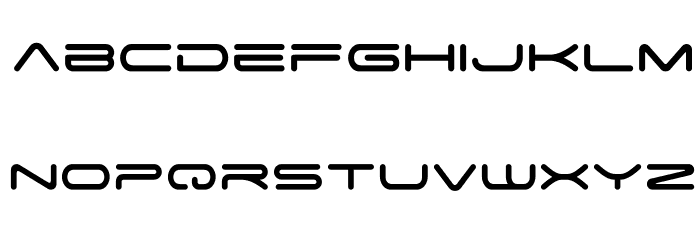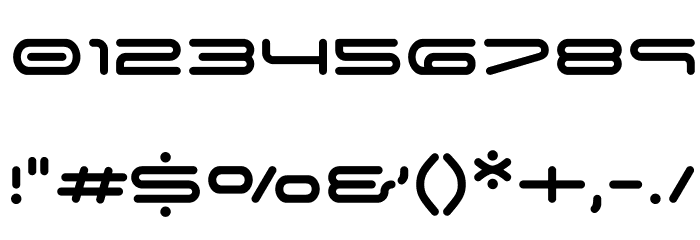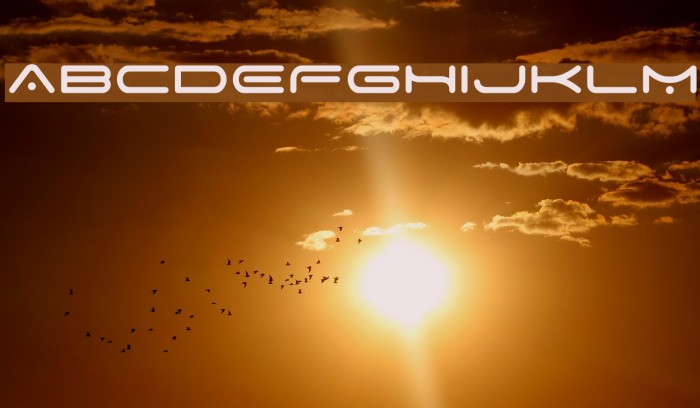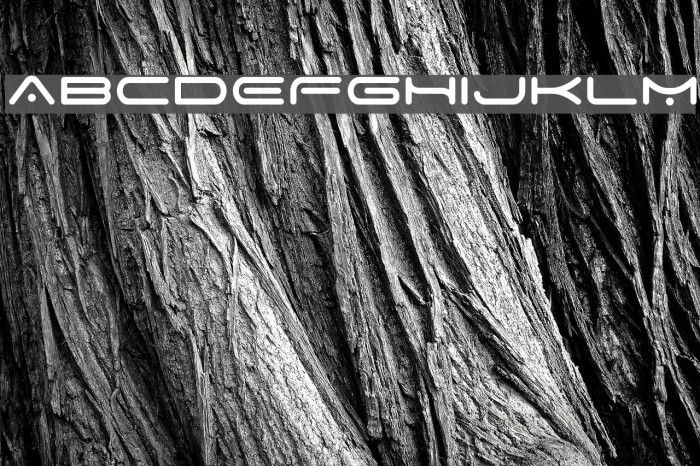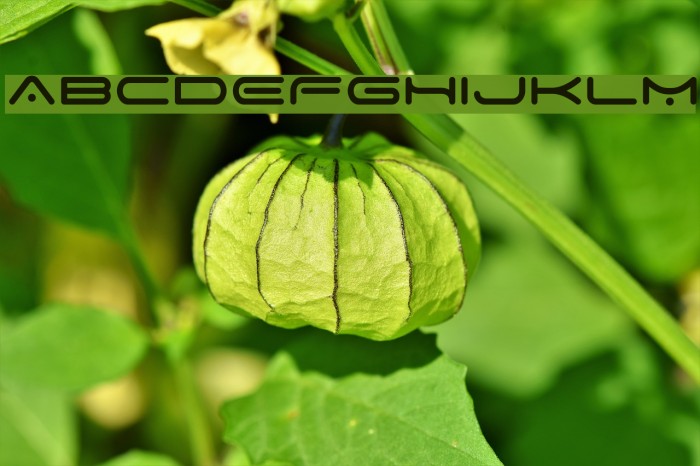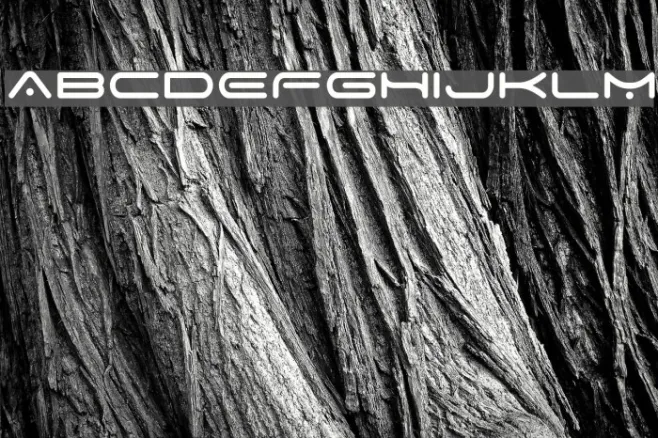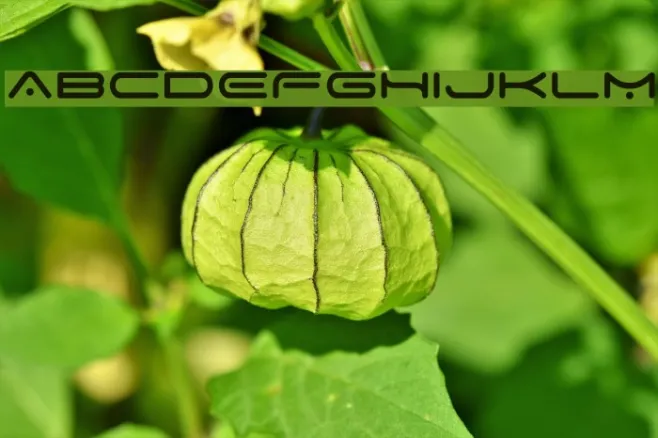
SpaceAge Font
This futuristic font features a sleek and modern design, characterized by its rounded edges and geometric shapes. The uppercase and lowercase letters maintain a consistent style, with a focus on symmetry and minimalism. The numerals and special characters complement the overall aesthetic, offering a cohesive look across all glyphs. The font's design suggests a sense of innovation and technology, making it ideal for projects that require a contemporary and forward-thinking appearance.
A futuristic, geometric font with rounded edges and a modern aesthetic.
- Proposed Projects: Ideal for technology branding, sci-fi movie posters, video game titles, and modern web design.
- Overall Style: Futuristic